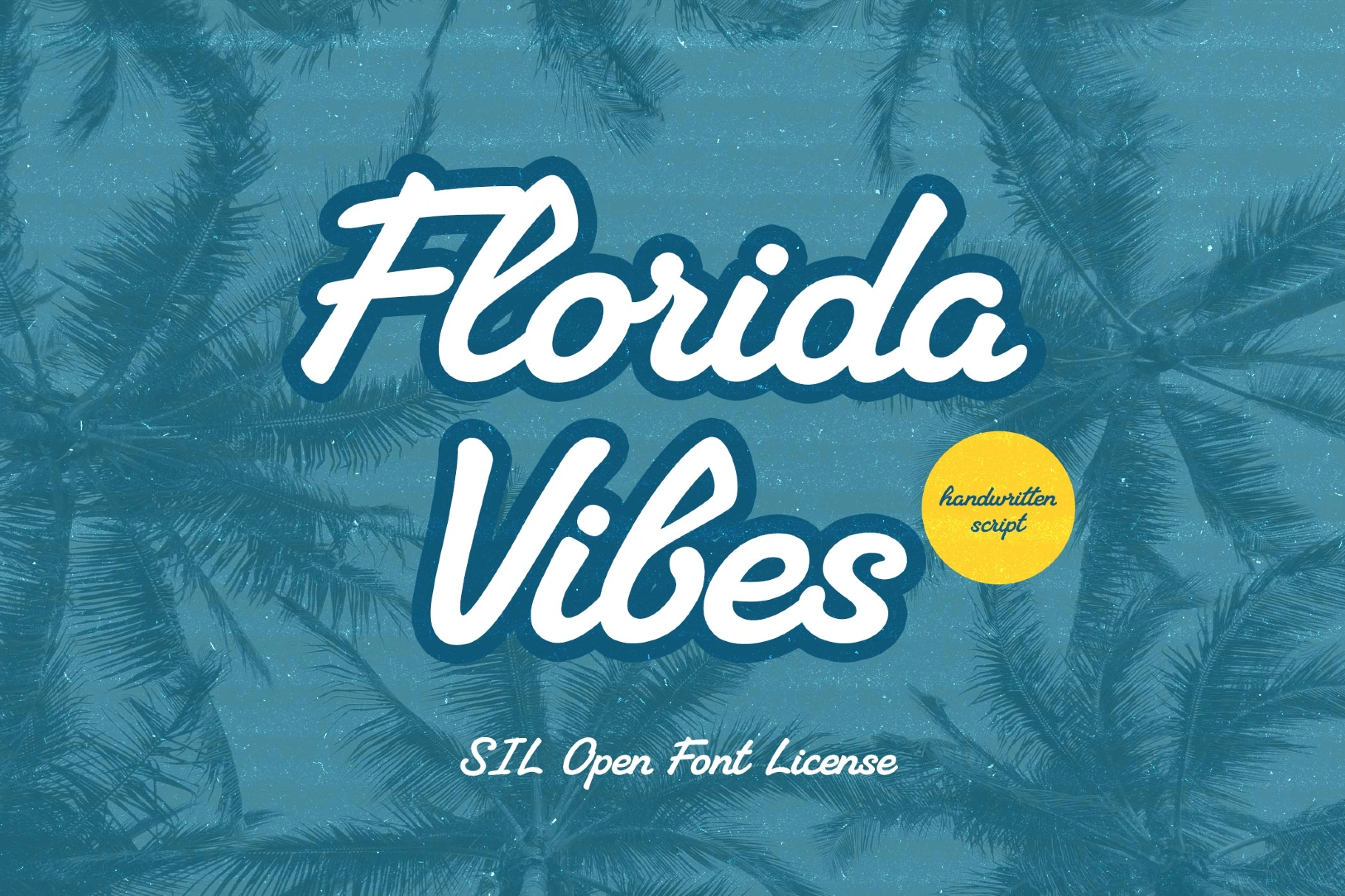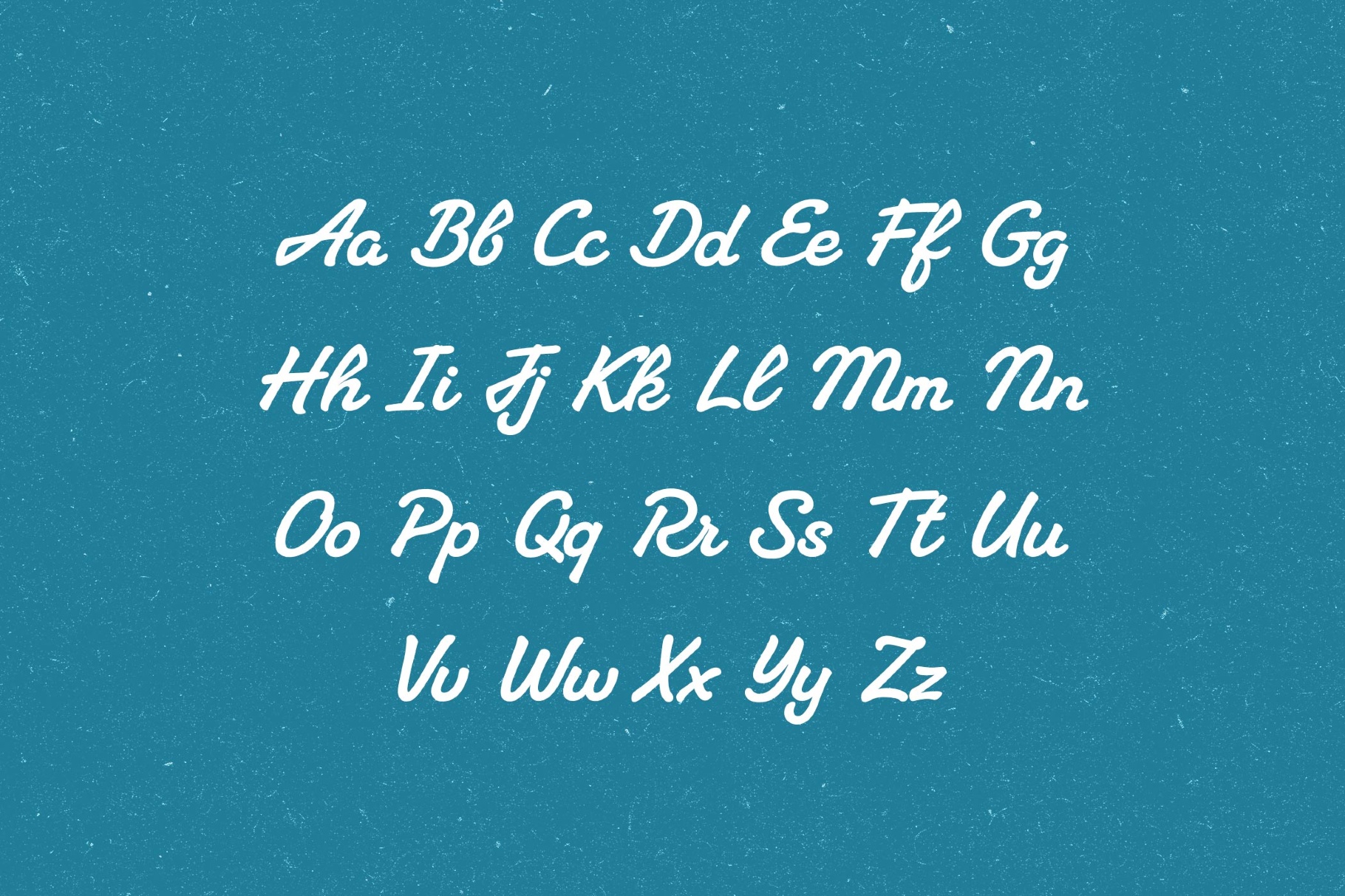
Florida Vibes Font
Florida Vibes by Turbologo
Florida Vibes is a handwritten summer script with loose buoyant strokes and postcard warmth, recalling roadside motel signs, beach-town souvenirs, and travel ephemera from the American Sun Belt. It will be useful for wedding invitations, resort branding, café menus, logo work, vacation brochures and social media graphics.